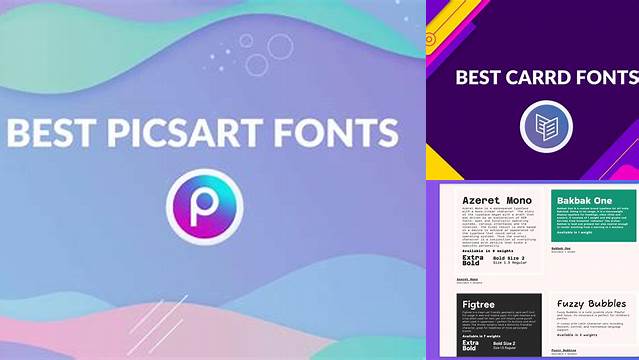
Carrd Fonts: Your Ultimate Guide To Stunning Website Typography
Carrd, a popular platform for creating simple, one-page websites, offers a user-friendly experience, but choosing the right fonts can sometimes feel tricky, right? This guide is designed to help you navigate the world of Carrd fonts and make your website truly stand out. We'll dive deep into selecting the best fonts, implementing them, and even explore some cool customization tricks. So, buckle up, guys, and let's get those websites looking slick! We'll cover everything from the basics of font selection to more advanced customization options, making sure you have all the tools you need to craft a visually stunning Carrd page. This is the place where we get to learn about how to make our carrrd pages stand out among the crowd. So if you are looking for tips and tricks on how to make your carrd pages pop, then you have come to the right place.
Why Font Choice Matters in Carrd
Okay, so why should you even care about fonts, you ask? Well, think of your website as a book. The text is the story, and the font is the cover. A well-chosen font grabs attention, sets the tone, and keeps your audience engaged. In the context of Carrd, where simplicity is key, fonts play an even more crucial role. They define the personality of your site and can influence how visitors perceive your content. Font selection isn't just about aesthetics; it's about usability and accessibility. A font that's easy to read on any device is vital for a good user experience. This is a crucial aspect of web design, particularly for platforms like Carrd, where visual appeal is paramount. Your font choices directly impact how users interact with your content. They can enhance readability and reinforce your brand's identity, setting the stage for a positive user experience. The proper font choices can establish a hierarchy of information. This helps to create a clear, organized layout, making it easy for visitors to understand your message. When selecting fonts, consider how they will look on different devices, as Carrd sites are designed to be responsive. Making sure your chosen fonts render well on mobile and desktop is essential. So, yes, choosing the right font matters a lot, it's like the cornerstone of your website's design. Let's make sure we get the right font, shall we?
Exploring Carrd's Font Options: Your Toolkit
Carrd offers a range of font options directly within its interface, including access to Google Fonts. Google Fonts is a library of open-source fonts that are readily available for use, meaning you have a huge selection to choose from. This integration simplifies the process of selecting and implementing fonts. When you're in the Carrd editor, you'll find a font selection tool that allows you to preview different fonts in real-time. This lets you see how a font looks with your content before you commit to it. The options are pretty easy to use, which is why Carrd is a good platform to start with! Carrd also provides options for adjusting font sizes, weights, and styles like italics and bold. These features allow you to customize your fonts to suit your design. Beyond the basic options, Carrd also supports custom fonts, providing even greater flexibility. This is where you can upload your own font files, allowing you to incorporate unique fonts that aren't available in Google Fonts. The custom font functionality opens up possibilities for branding and design. The toolkit at Carrd is designed to be user-friendly. No coding is required. Whether you're a beginner or have some design experience, you'll find the font options accessible and easy to use. So, don't worry, it is easy and simple!
Font Pairing: Finding the Perfect Match
Font pairing is an art form, guys! The key to a good design is when two or more fonts work together. The wrong combination can make your site look messy and unprofessional. So, how do you pair fonts effectively? The first step is understanding the different font categories, such as serif, sans-serif, and display fonts. Serif fonts have small strokes at the ends of letters, while sans-serif fonts do not. Display fonts are often used for headings or short bursts of text. A good approach is to pair a serif font for headings with a sans-serif font for body text. This combination offers visual contrast and improves readability. You can also use fonts from the same font family, but in different weights or styles. This creates a sense of harmony and cohesion. A good start is to use Google Fonts, which also provides font pairing suggestions. These recommendations are based on design principles, meaning you can start from there and explore further. A tool is only a starting point. The ideal match will depend on your website. It is essential to evaluate how fonts work together, and test them to see how they look on your page. Avoid using too many fonts, as this can make your site look cluttered. Two or three fonts are usually enough to create a cohesive and visually appealing design. This way, you can maintain visual consistency. There is no limit to the choices and combinations. You can experiment with different styles and find your own perfect font combinations.
Customization and Advanced Tips for Carrd Fonts
Ready to take your font game to the next level? Let's dive into some advanced tips and tricks. Carrd allows for some customization beyond the basic options. You can change font colors to match your brand’s color scheme. You can use the site settings to adjust the global font settings. This means you can update all the fonts on your site in one place. If you know a little bit of CSS, you can add custom styles to further customize your fonts. This can include effects like shadows, letter spacing, and more. If you want to make your site even more unique, custom font uploads are a game-changer. To enhance readability, consider how different fonts render on different devices. Make sure the chosen font is easy to read on screens of all sizes. Make use of font weights, italics, and capitalization to add visual interest. These elements can create a sense of hierarchy. These are great ways to emphasize essential information. Ensure consistency in your font choices throughout your site. That means maintaining the same fonts for headings, body text, and other elements. This ensures a professional look. Always preview your site on different devices. This is important, since you want to make sure your font styles look as you intended. Experiment with different combinations of fonts. Get feedback to enhance the design and user experience. If you apply these practices, you can make sure your Carrd site looks both beautiful and functions effectively. You're now equipped to elevate your Carrd site's design!
Common Carrd Font Mistakes to Avoid
Alright, let's look at some common mistakes to avoid when using fonts on Carrd. One big no-no is using too many fonts. It is easy to get carried away. Sticking to a limited number of fonts is a way of creating a consistent look. Overdoing it can make your site look messy and unprofessional. Another mistake is selecting fonts that are difficult to read. Always prioritize readability. If users can't easily read your text, they'll likely bounce. Make sure the font sizes are appropriate for the content and the device. Not considering the target audience is another common issue. Always select fonts that match your website's tone and style. A font that works well for a children's website might not be appropriate for a professional blog. Also, avoid selecting fonts that are poorly optimized or do not render well on various devices. Always preview your site on different devices to make sure your fonts look consistent. Ignoring accessibility is another mistake. Ensure your fonts are accessible to users with disabilities by using sufficient contrast and providing alternate text for images. When you avoid these mistakes, you’ll be well on your way to creating a Carrd site that is both beautiful and easy to use.
Resources and Tools for Carrd Font Selection
Let's equip you with some great resources and tools to make your font selection journey easier. Google Fonts is the go-to resource for a wide selection of fonts, all free for use. The site lets you browse fonts by category, style, and popularity. You can even test fonts with your own text to see how they look. FontPair.co is another excellent resource that suggests font pairings that work well together. This is a great place to start if you are unsure how to pair fonts. Tools like WhatTheFont can help you identify fonts you like when you see them. You can upload an image, and the tool will try to identify the font used. Use these tools to create a style guide for your brand. Once you have found the right font, make sure to document the font size, weight, and style you are using. Create a document or spreadsheet so you can always refer to it. Consider online design communities and forums. These places are a great place to share your designs, and get feedback from other designers. Stay updated with font trends. This will help you keep your website design modern and appealing. The resources and tools available will help you make the best font choices for your Carrd site.
Conclusion: Mastering Carrd Fonts
So, there you have it, a comprehensive guide to mastering fonts on Carrd! We've covered everything from the basics of font selection to advanced customization tips. Choosing the right fonts is a crucial aspect of web design. It affects how visitors perceive your content. With the knowledge and tools provided, you can create a visually stunning Carrd page. By considering the tips and tricks, you're now ready to create a Carrd website that looks and functions perfectly. Embrace the creative process. Remember, the best fonts are the ones that work well for your audience. So go out there and start designing! Let's make some awesome Carrd sites!